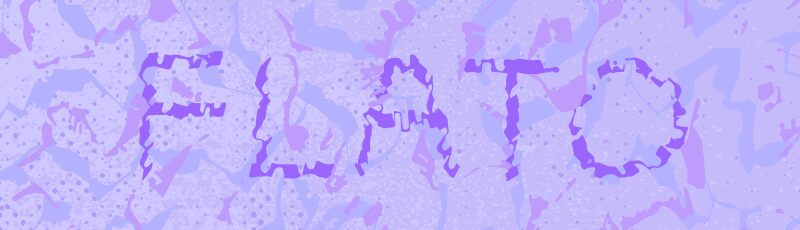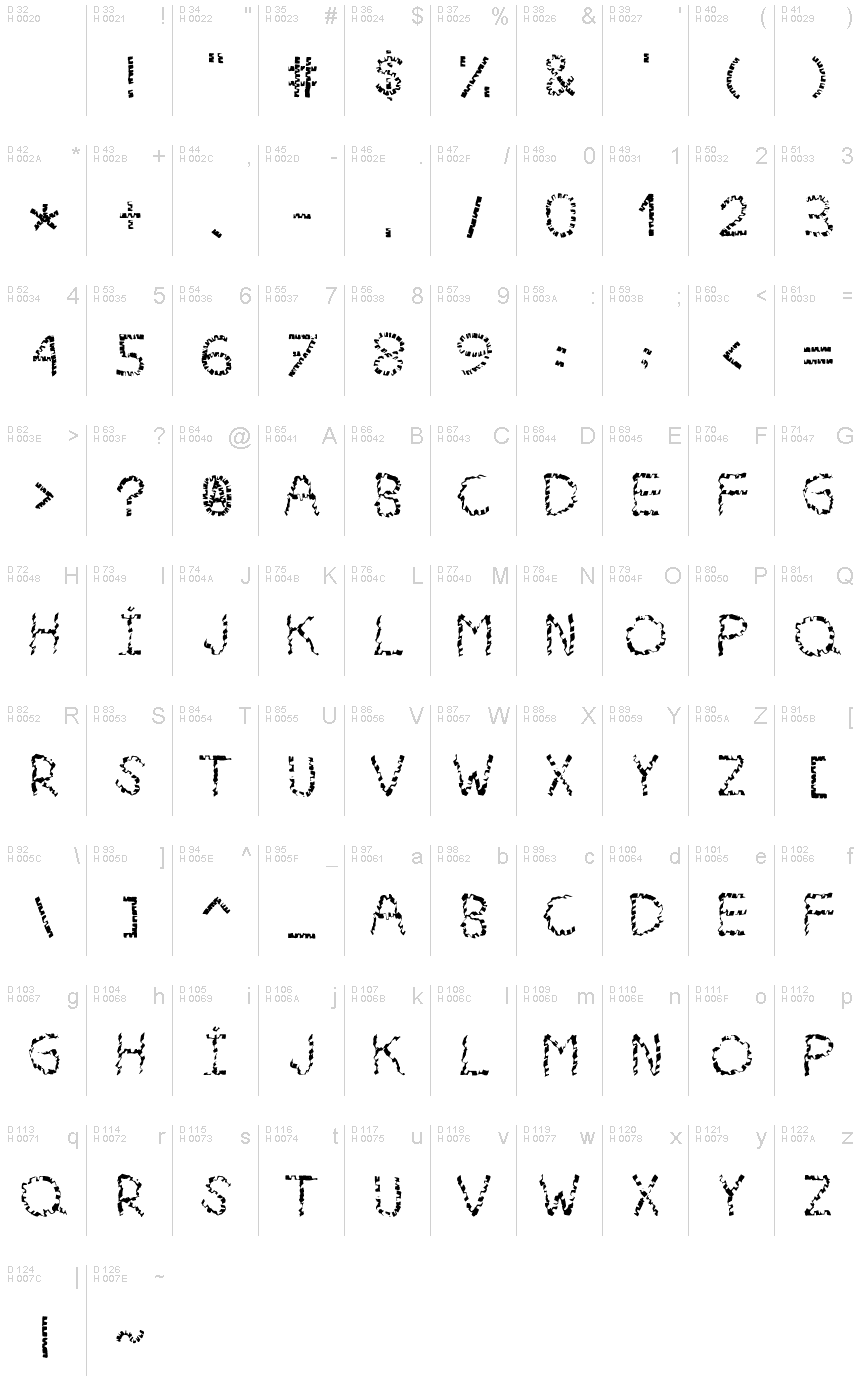
Flato
Flato is a unique display font designed by byooroh, perfect for projects that require a touch of creativity and originality. Crafted with a semi-light weight and semi-expanded width, Flato boasts a distorted style that adds character to any design. Its bold yet playful appearance makes it an ideal choice for eye-catching logos, headlines, posters, and social media graphics. Whether you're working on branding for a new business or creating marketing materials for an event, Flato's distinctive look is sure to make your project stand out from the crowd. Get creative with Flato today!